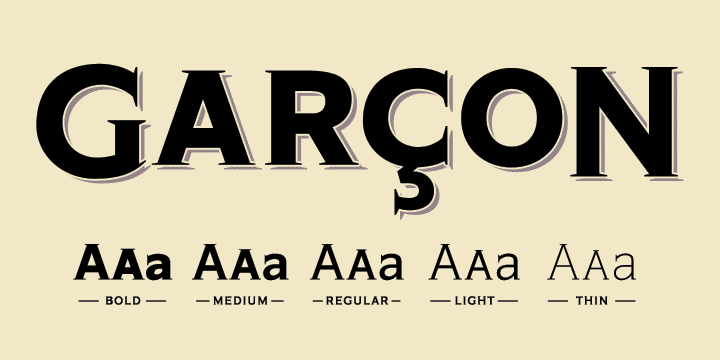
Garcon Grotesque Font Family
From pastiche to sophistication‭, ‬Garçon Grotesque improves on a classic for today’s designer‭. ‬Designed in a multitude of weights‭, ‬extended latin character set‭, ‬small capitals and a working lowercase‭, ‬Garçon is built for any situation that calls for sophistication‭, ‬elegance and culture‭.‬